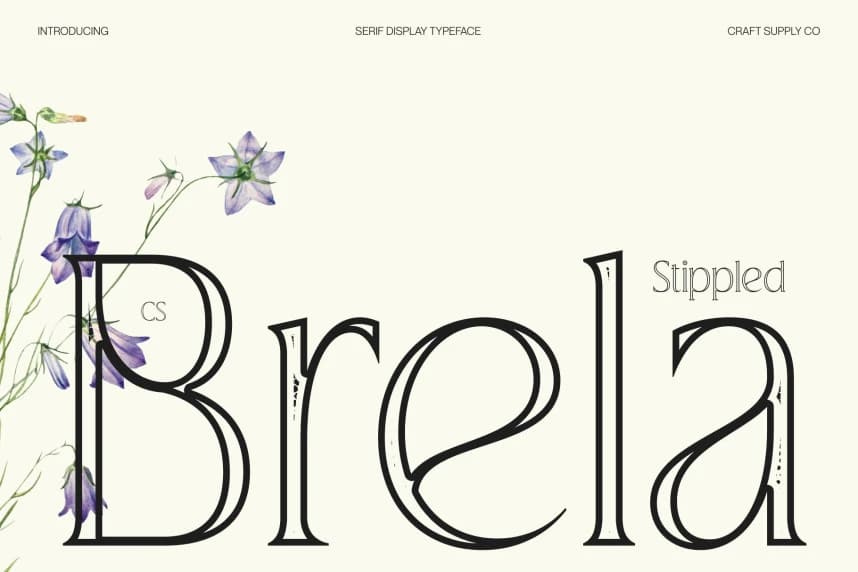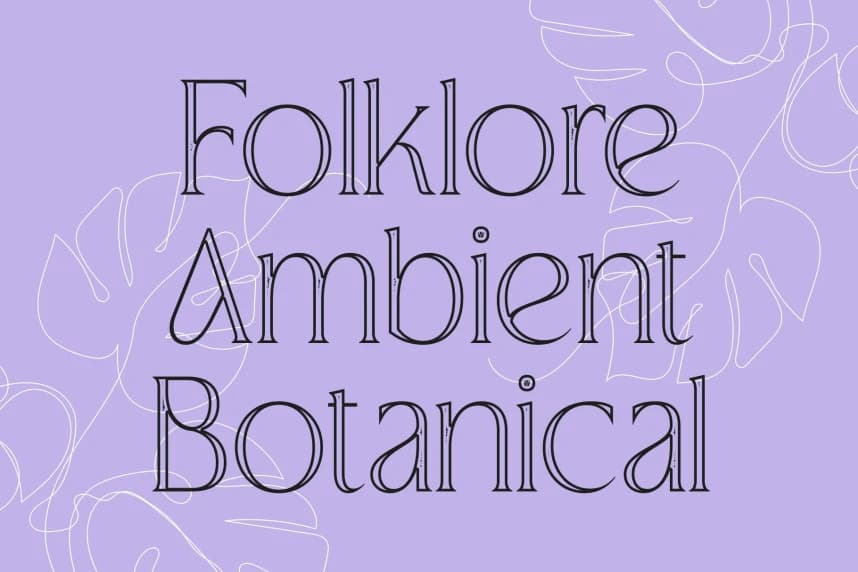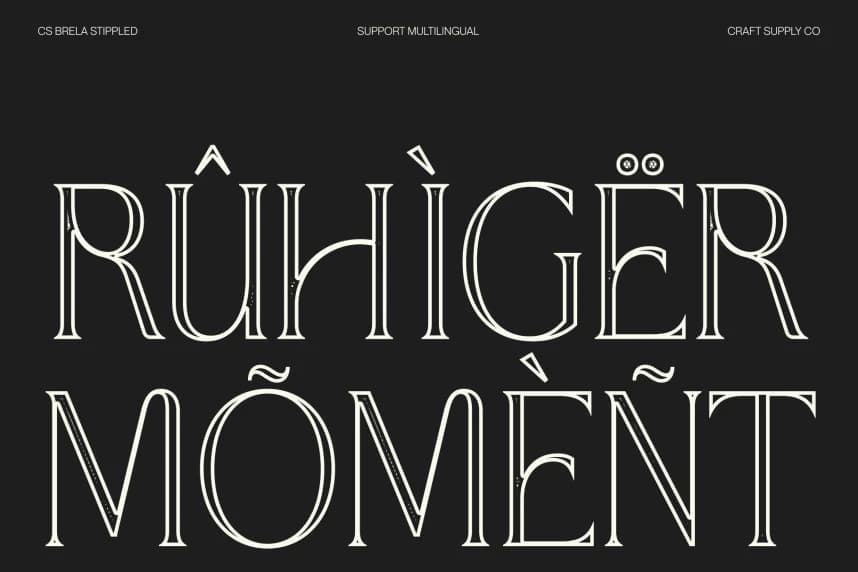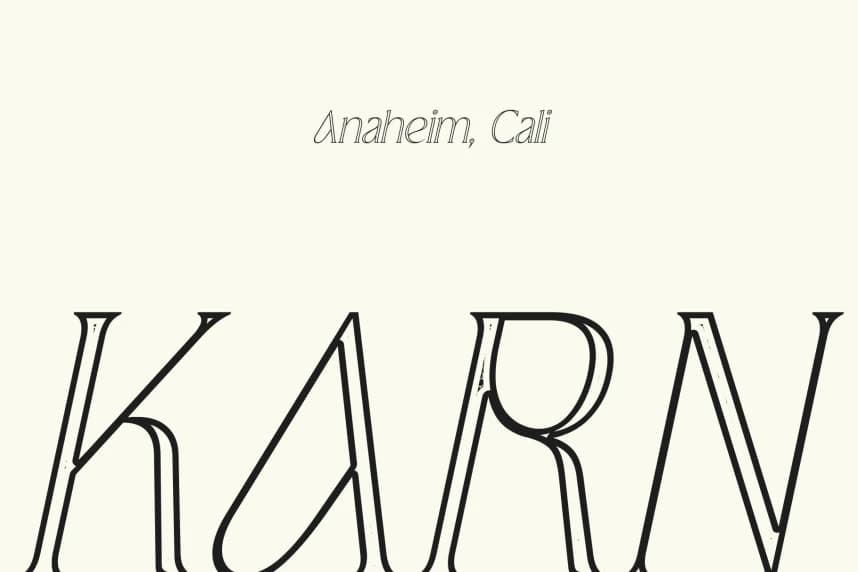
CS Brela stippled Font
CS Brela Stippled Font – Elegant Serif with Playful Sophistication Elegant Serif with Casual Charm and Textured Depth. This is an elegant serif font designed with simple, well-balanced letterforms that emphasize clarity and refinement.